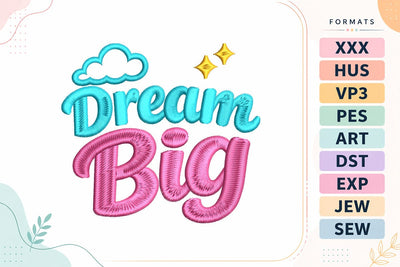
Dream Big | Cute Baby Quote
Encourage big dreams with this Dream Big baby embroidery design. Featuring soft playful lettering with cute cloud and star accents, this adorable design is perfect for baby bodysuits, bibs, blankets, nursery décor, baby shower gifts, and personalized keepsakes. Expertly digitized for smooth stitching and beautiful embroidery quality.